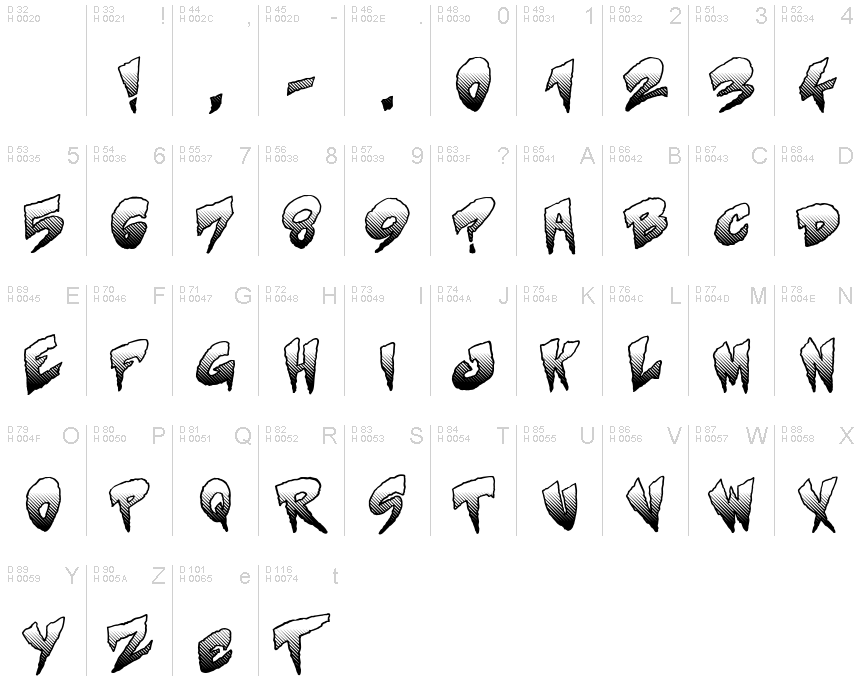
Mystery
Mystery is a bold, cartoon-inspired display font that exudes an air of intrigue and playfulness. Designed by imagex, this typeface features sharp, angular letterforms that seemingly cut through the page, creating a dynamic and attention-grabbing aesthetic. The bold weight and exaggerated stroke contrasts lend the font a sense of power and confidence, making it well-suited for headlines, logos, and other design elements that demand a striking visual presence.
The distinctly cartoon-like style of "Mystery" imbues it with a sense of whimsy and charm, suggesting a range of potential applications in branding, packaging, and editorial design. Whether used to convey a sense of adventure, mystery, or youthful energy, this font's unique personality is sure to captivate and engage viewers.